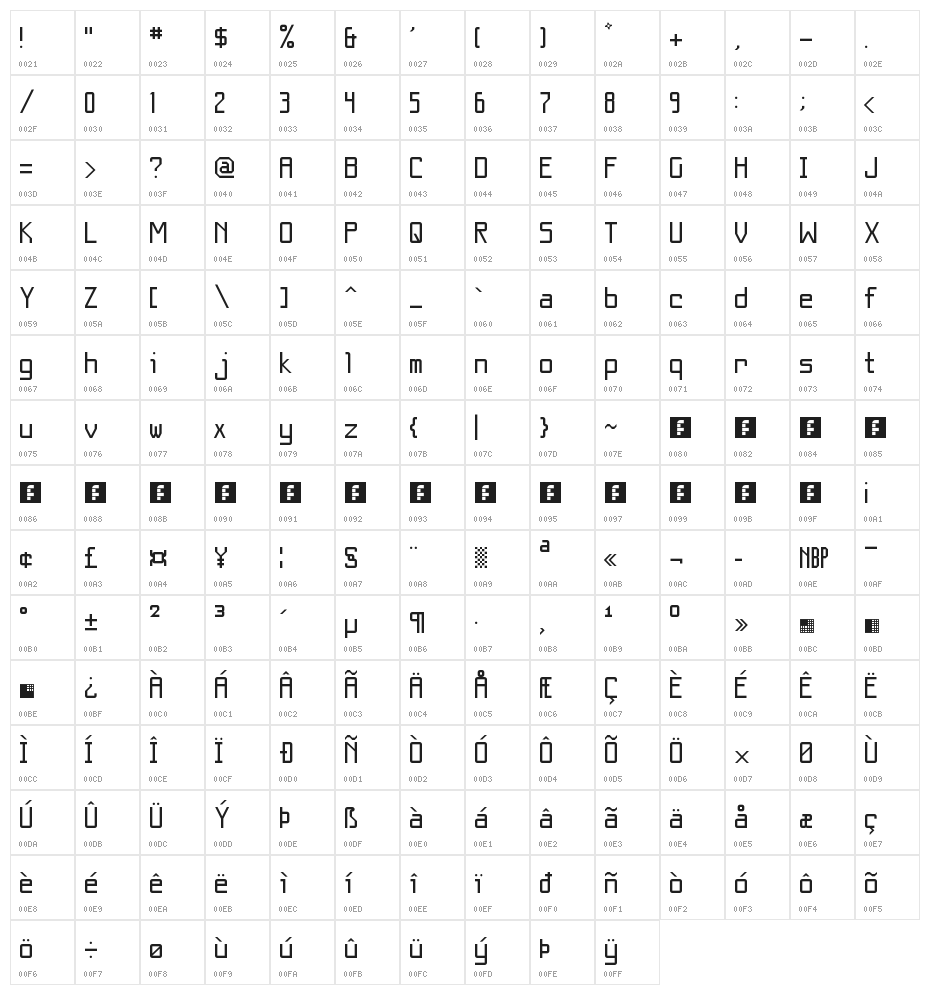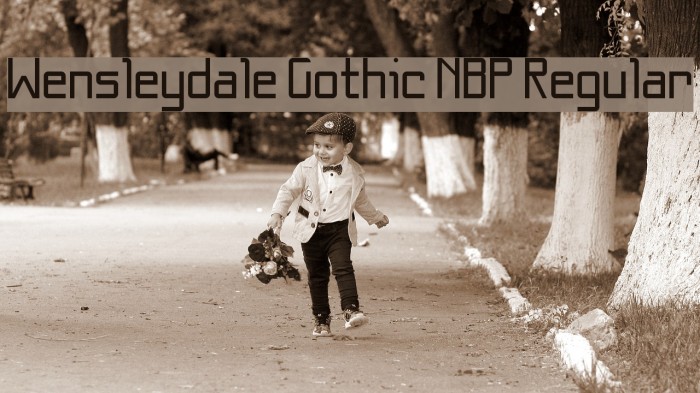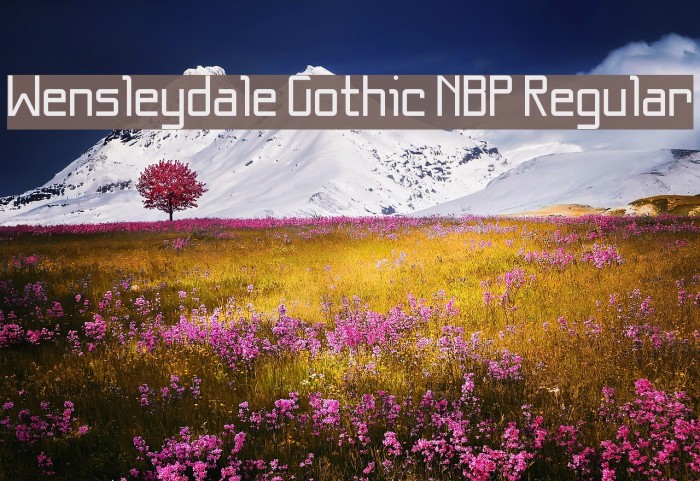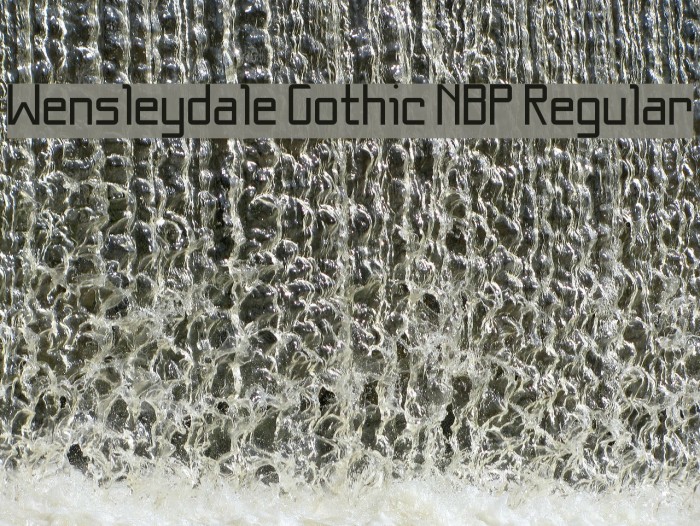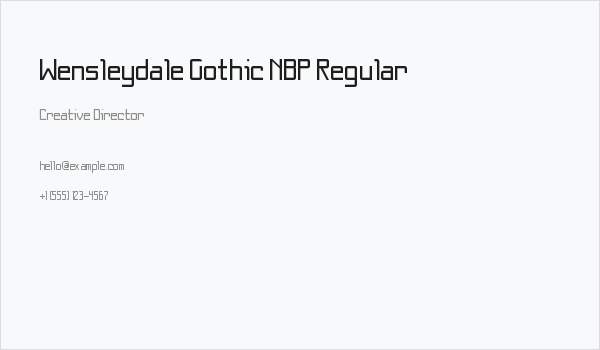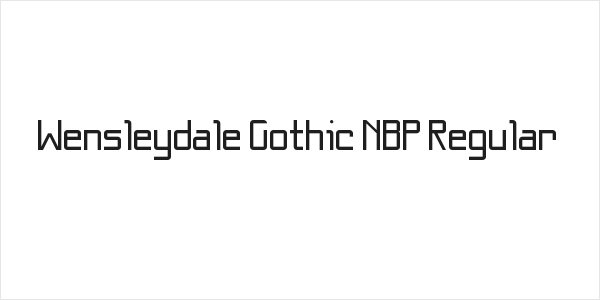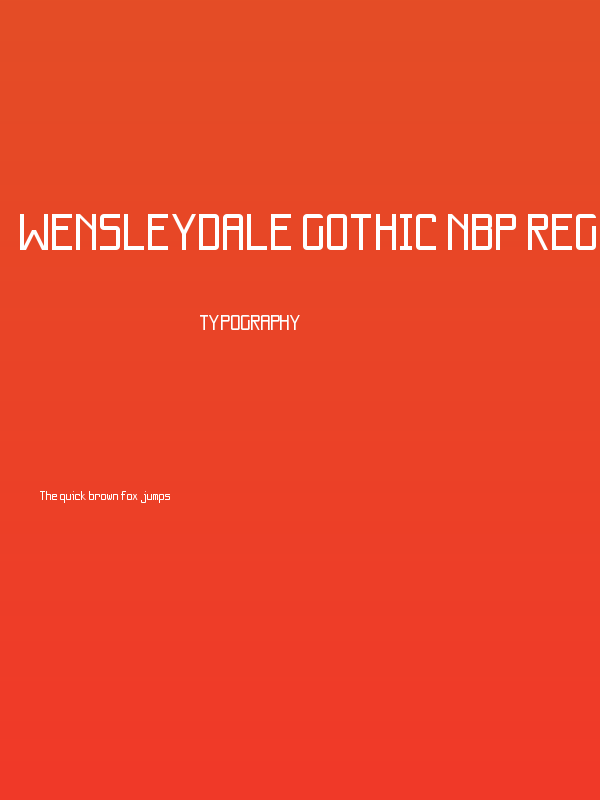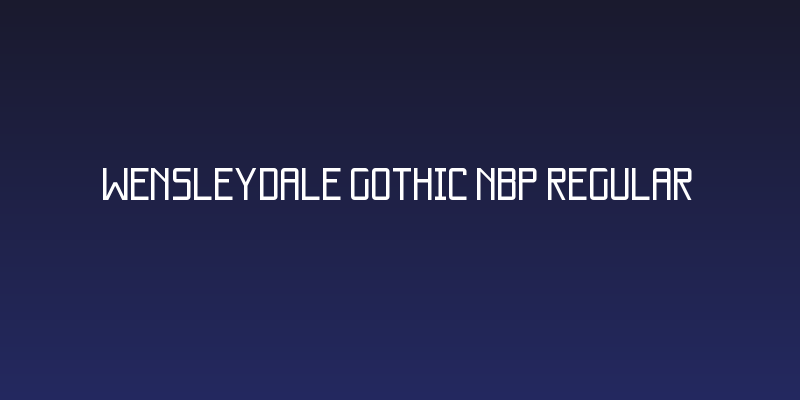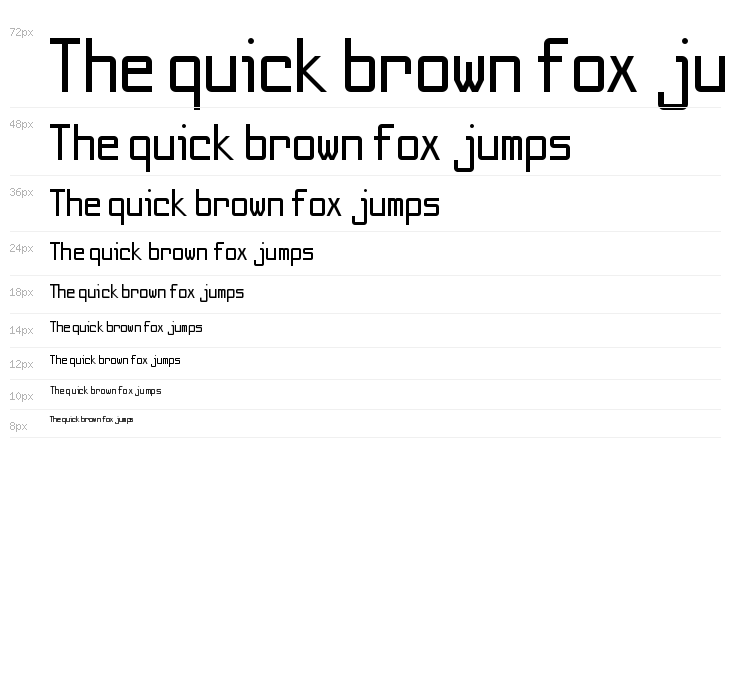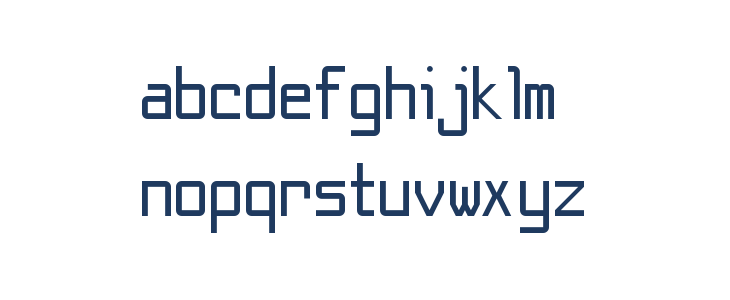
Wensleydale Gothic NBP Regular Font
Wensleydale Gothic NBP Regular Description
This font features a geometric and structured design with a modern twist. The characters are composed of straight lines and sharp angles, giving it a futuristic and technical appearance. The uppercase letters are uniform in height, while the lowercase letters maintain a consistent style with slightly rounded edges. The numerals are clear and distinct, matching the overall aesthetic of the font. Special characters are included, maintaining the geometric theme. This font is highly legible and suitable for various design applications.
| Use Case | Headlines, Logos, Digital Interfaces |
| Proposed Projects | Ideal for technology branding, modern posters, digital interfaces, and futuristic designs. |